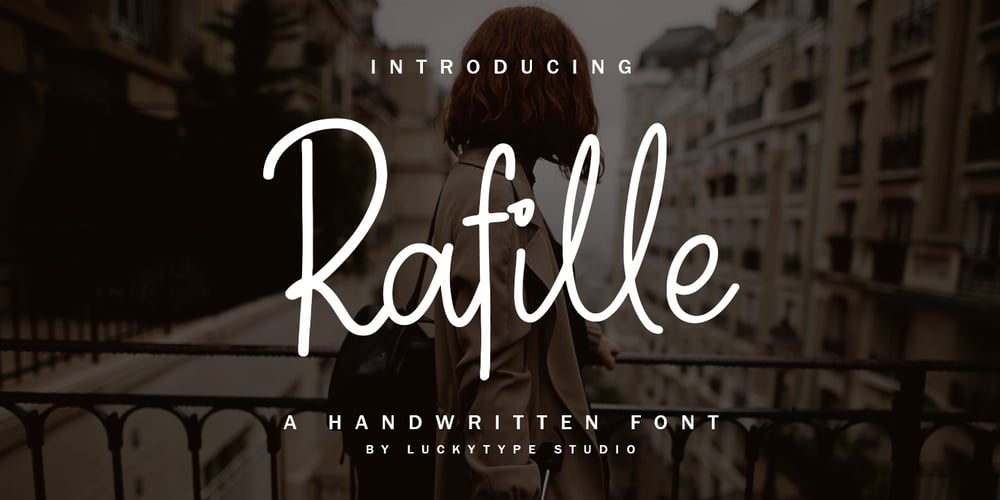
Rafille Signature Font Family was designed by Muhammad Fajar and published by Lucky Type. Rafille Signature contains 1 styles and family package options. Rafille is a new modern handwritten font with irregular basic lines. contemporary design approach, suitable for use in title designs such as clothing, invitations, book titles, stationery designs, quotes, branding, logos, greeting cards, T-shirts, packaging designs, posters, and much more.Complete with upper and lower case letters, as well as multi-language support, numbers, punctuation.